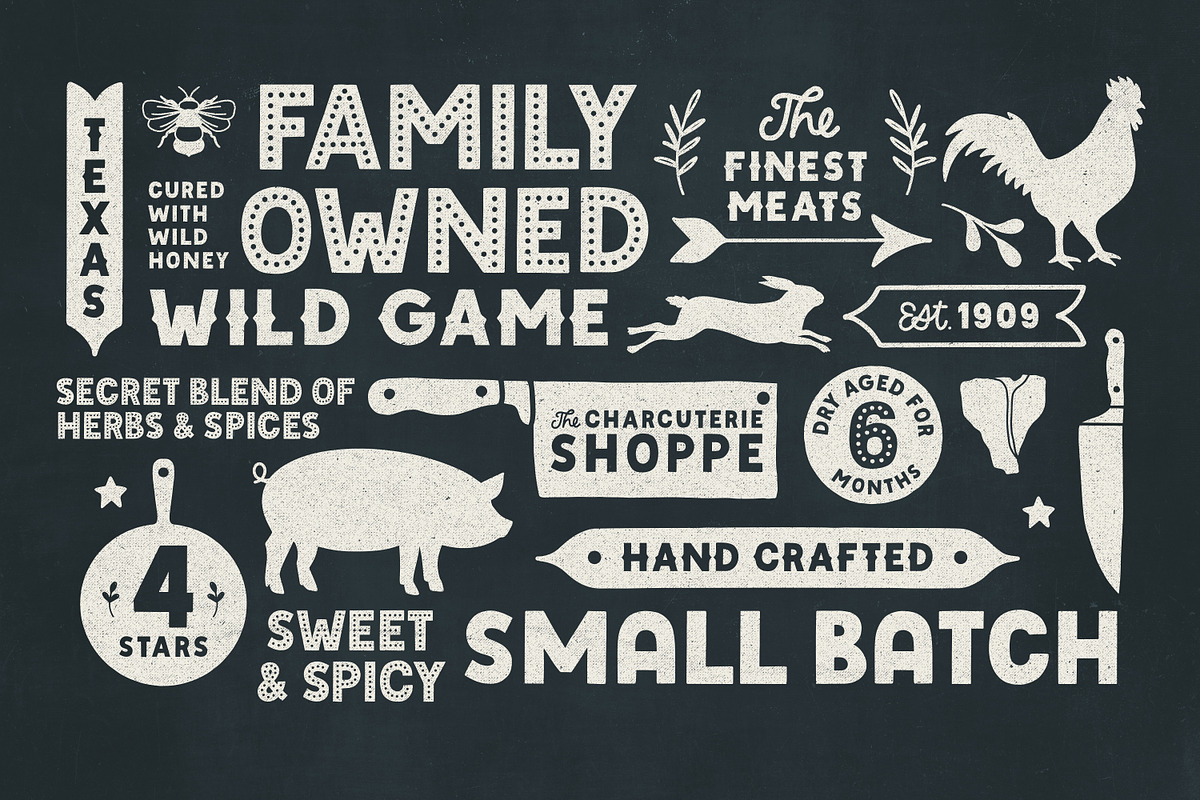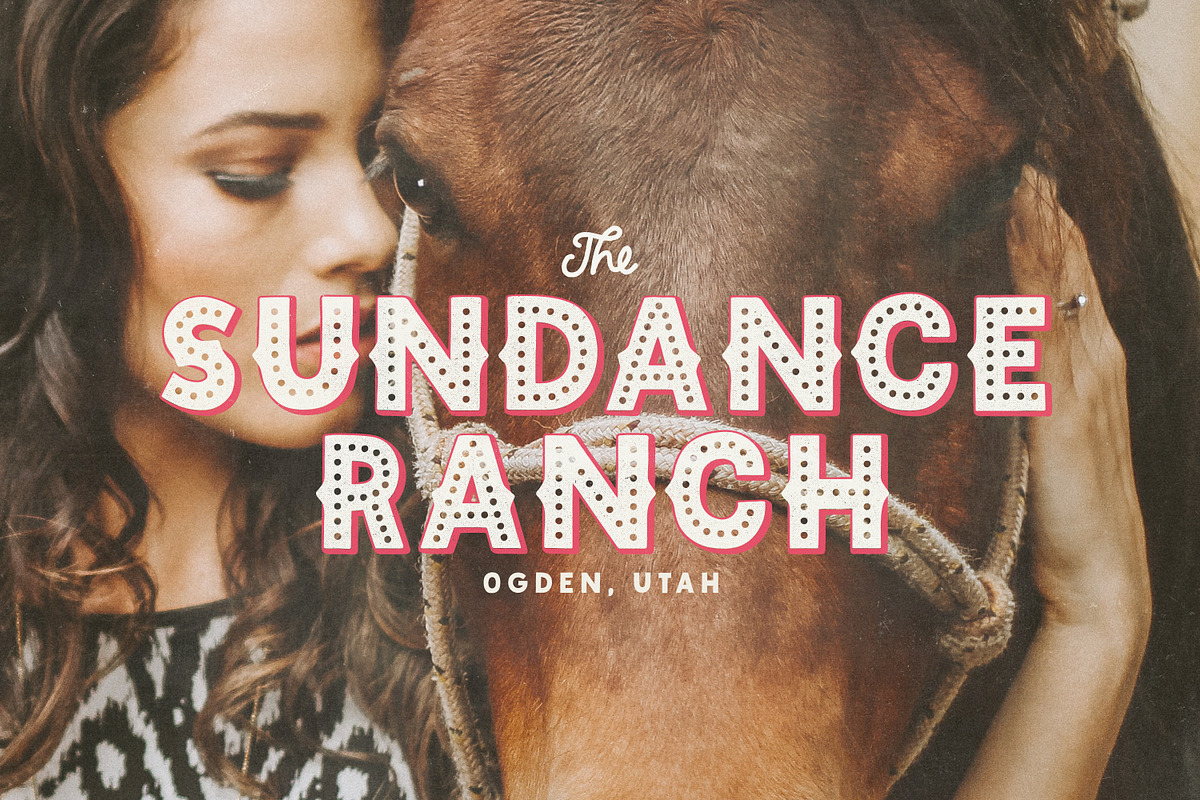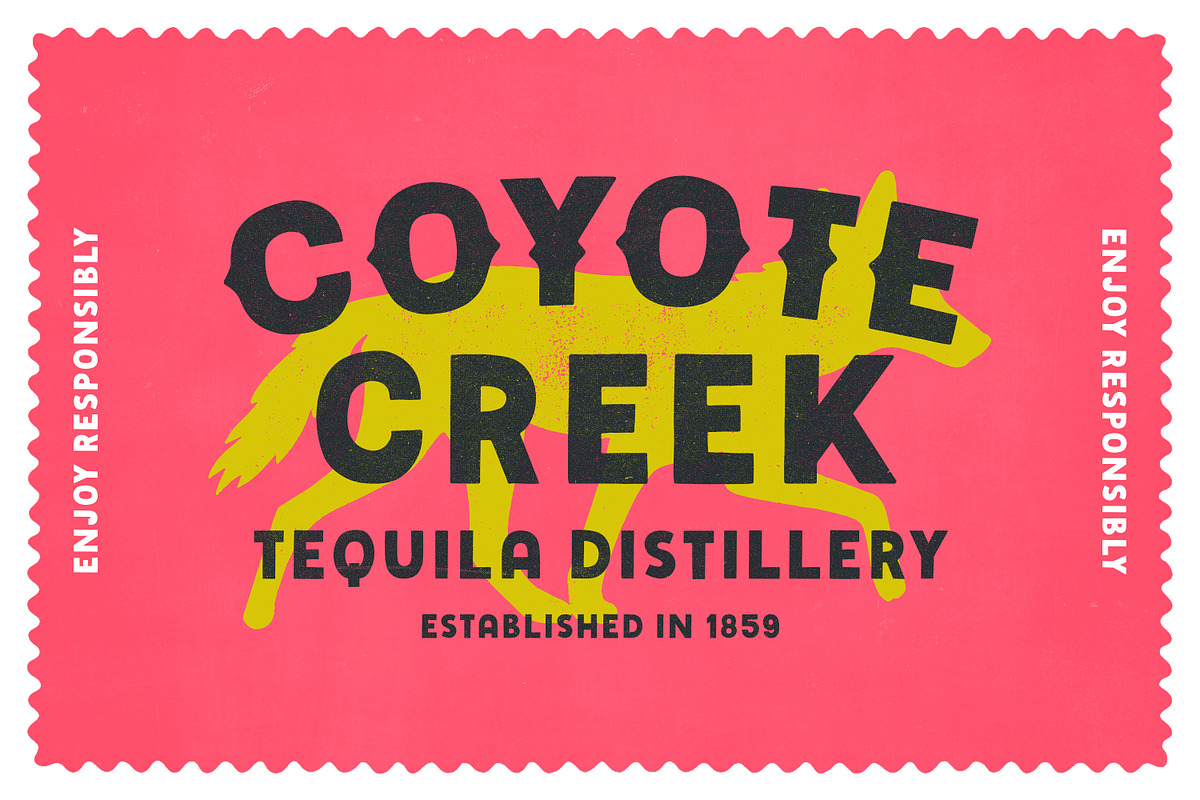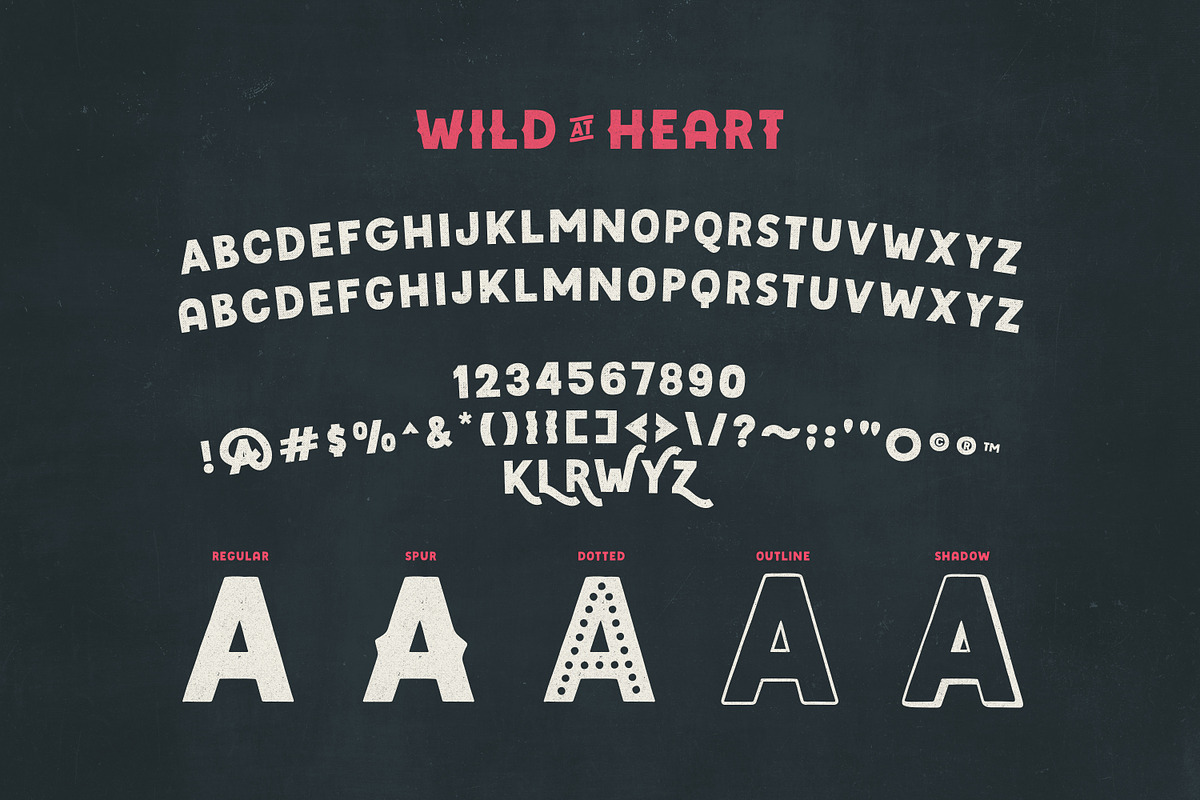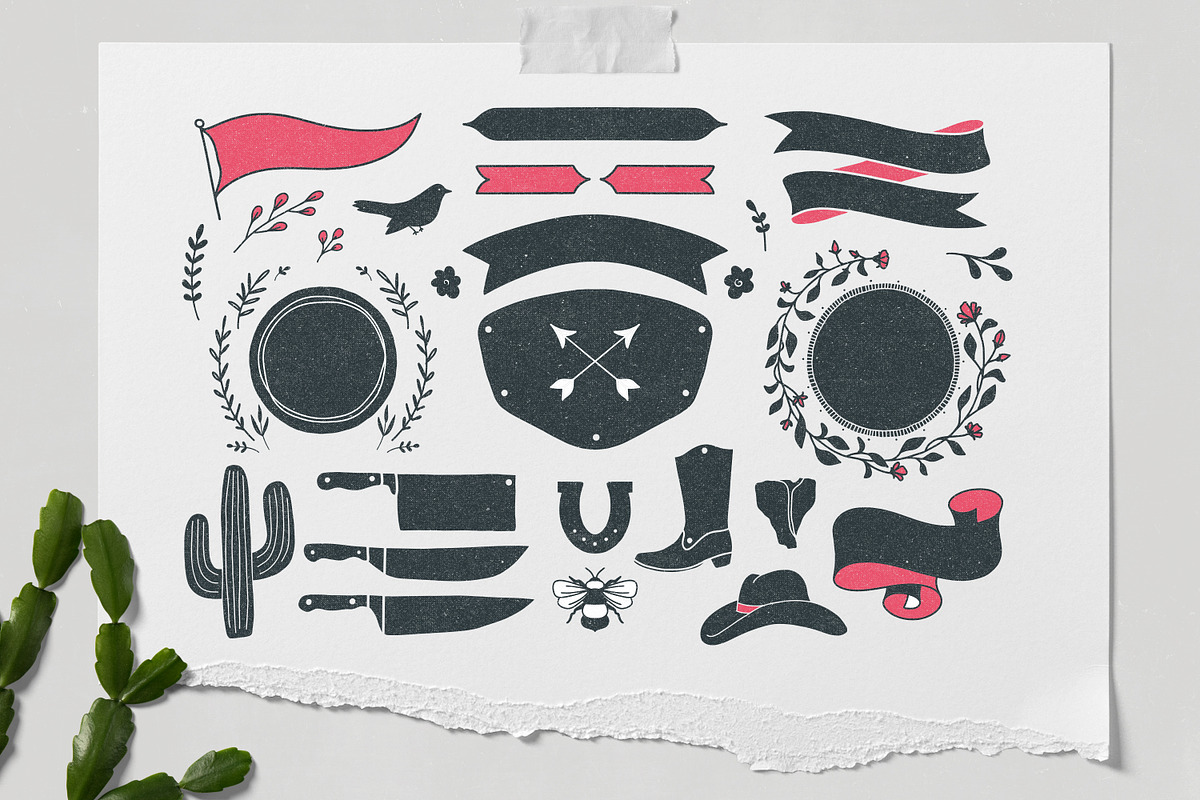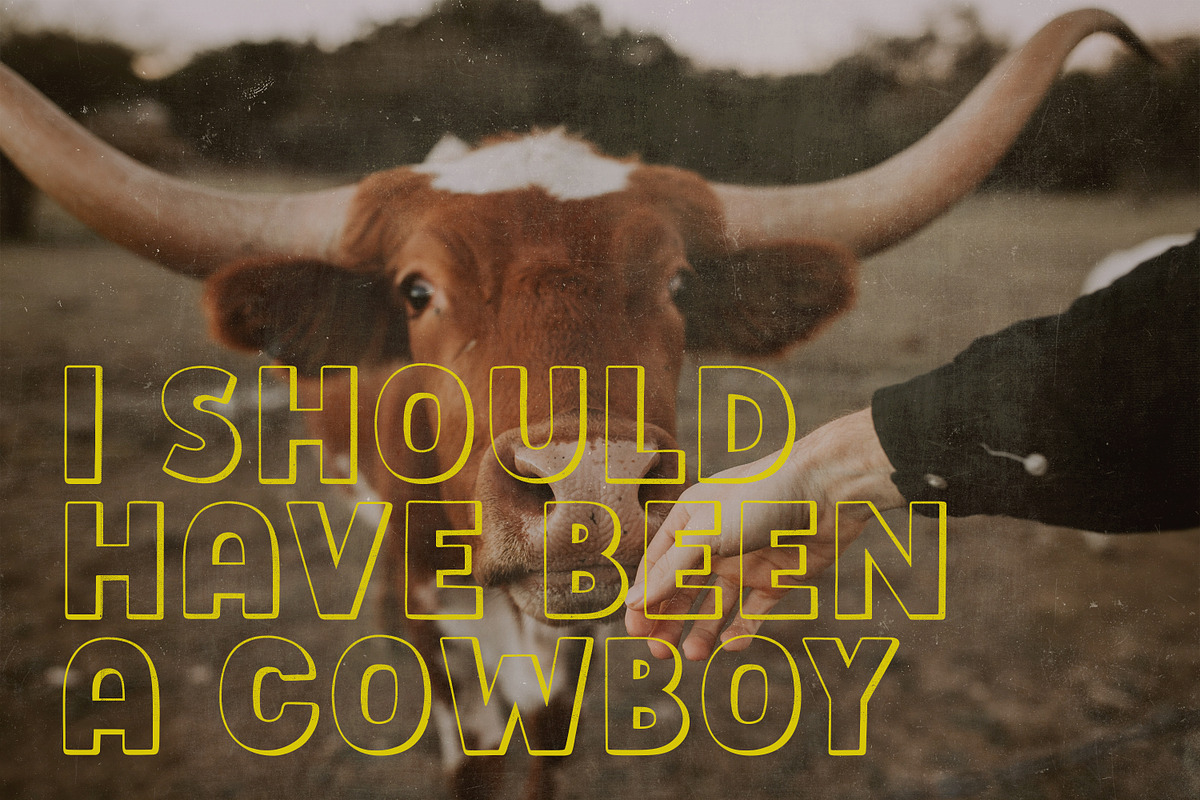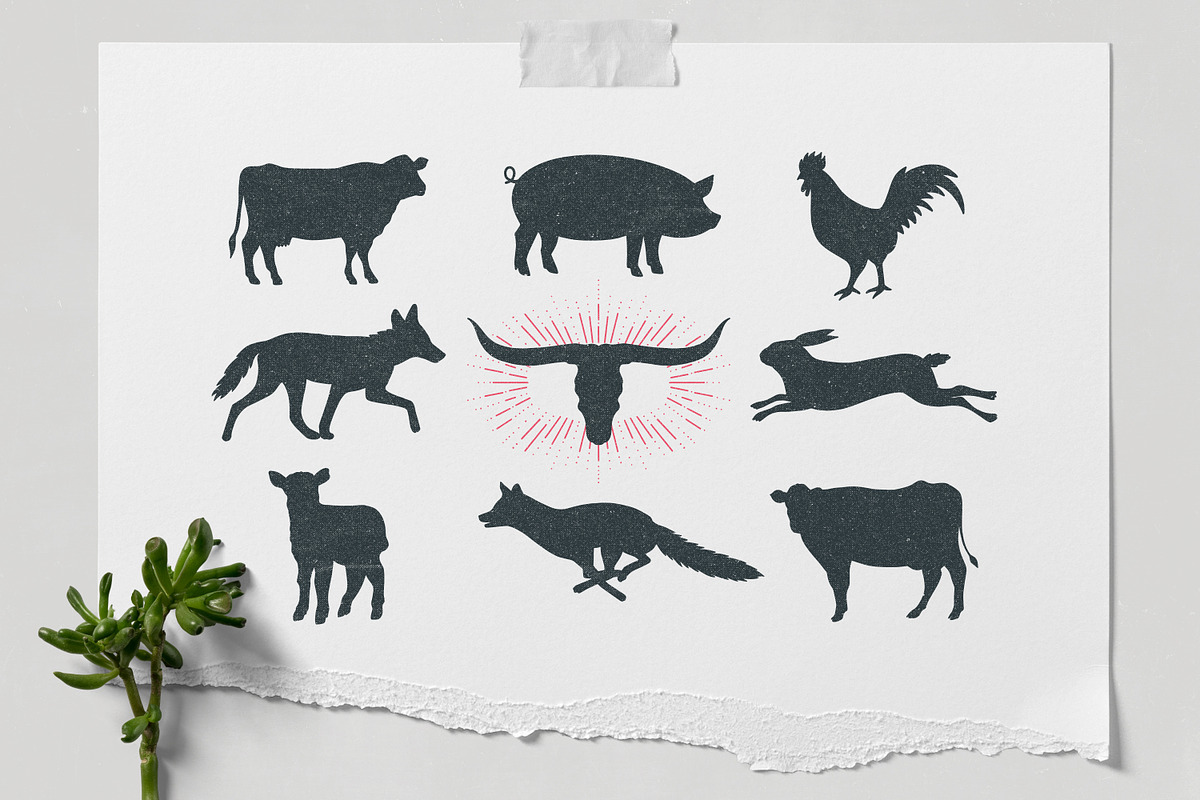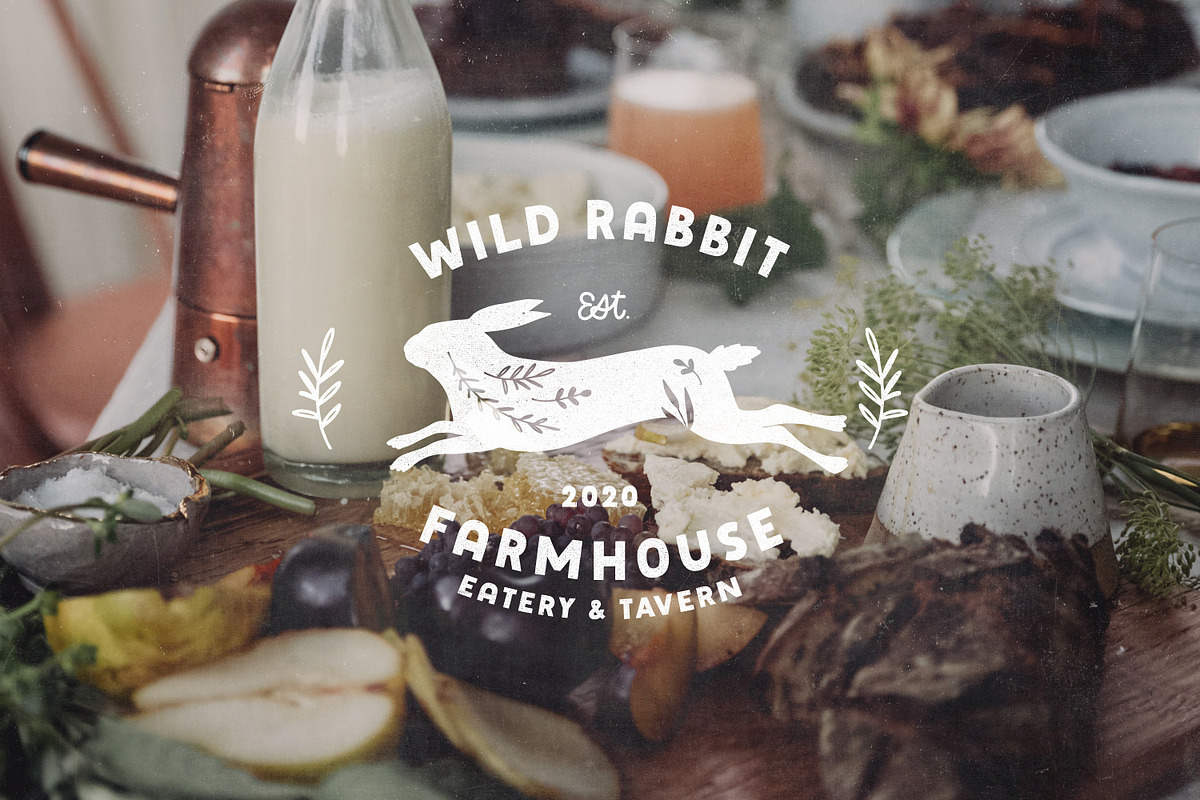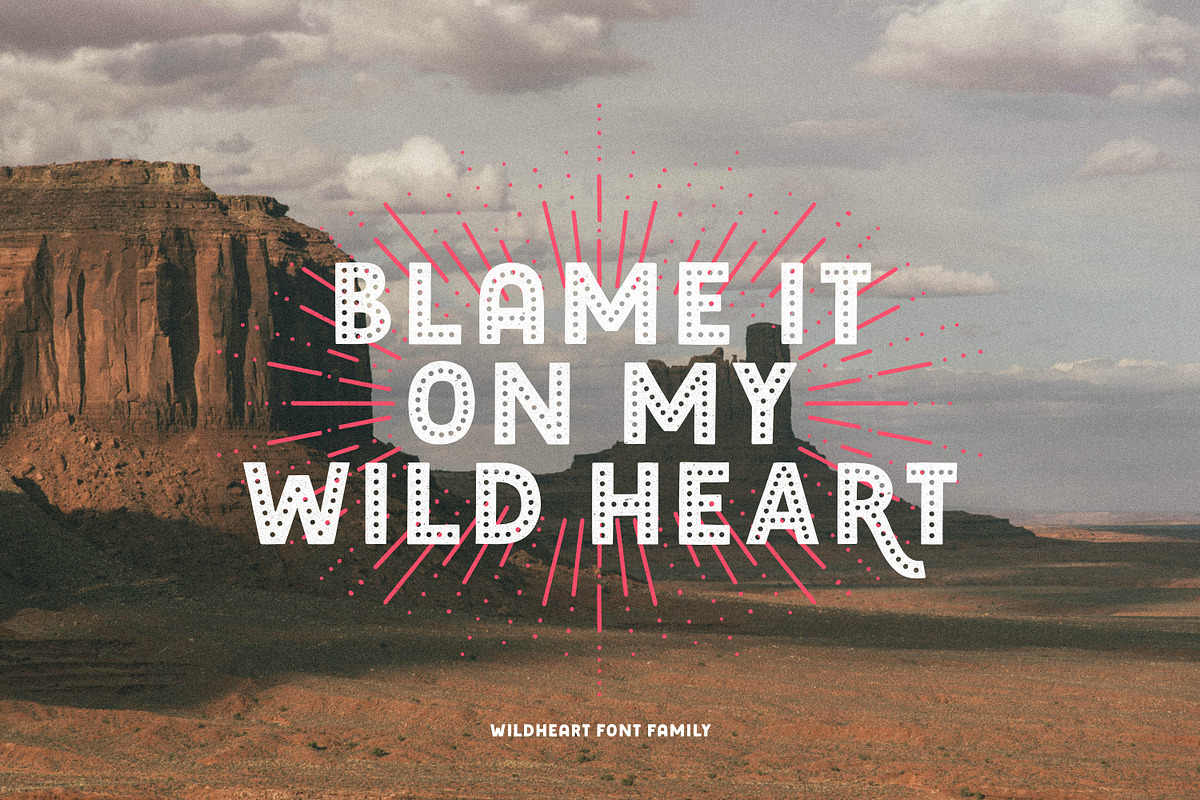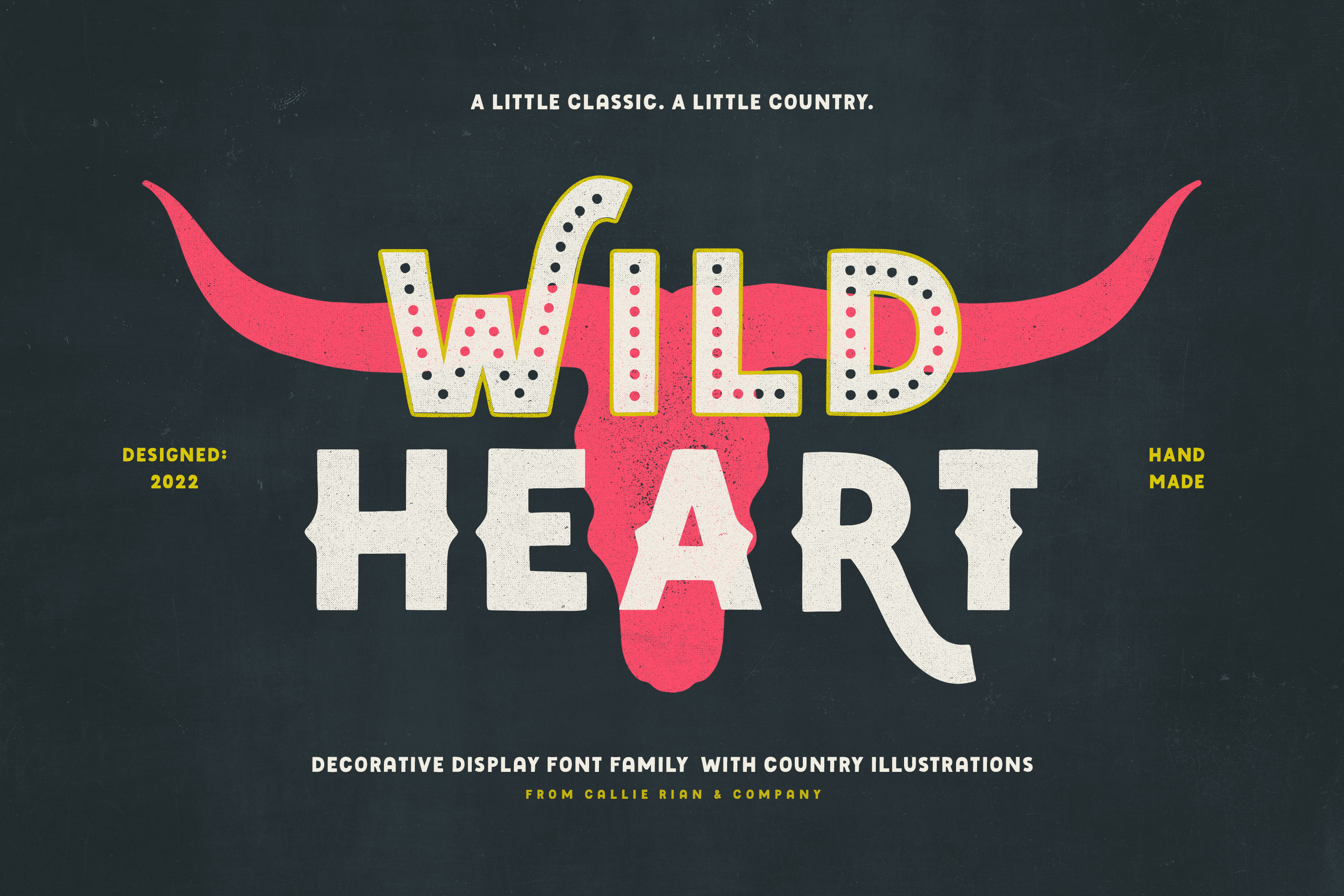
Wildheart | Font Family + Elements
Get a little classic. Get a little country. ๐๐๐ฅ๐ชด
Introducing, Wild Heart, a timeless sans serif font family with six decorative versions, a dingbat & catchword font, a hand drawn selection of country animals, and over 30 hand drawn elements for logo design. You can get retro with the dotted or outlined version, instantly go a little country with a spurred version, or keep it traditional with the simplicity of Wildheart Regular. Use on everything from logos, to magazines, to signage. And donโt forget the catchwords, animal silhouettes and hand drawn country elements for logos, invitations, greeting cards, stickers, stationary, tea towels and more! So fun and versatile! Hopefully you love this pack as much as I do!
- Fonts CONTAIN English Language Support. Iโve included a separate dieresis, grave, acute, circumflex, cedilla & tilde in case you need an accented glyph.
- Please Note these fonts are hand drawn and vectorized, so they have a natural texture that isnโt 100% smooth. Feel free to try them with your Cricut or Silhouette machine.